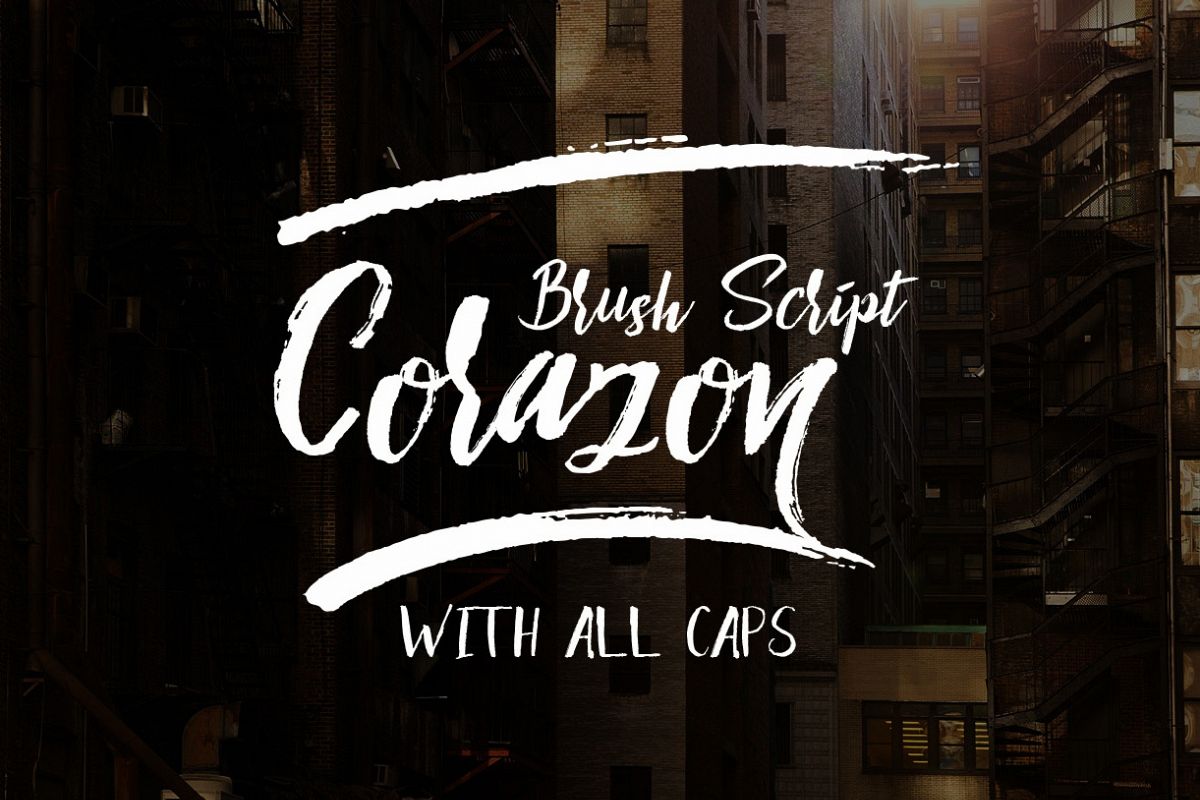
Corazon Brush Script
Swashes
Corazon All Caps
Hello.....Corazon Brush Script is my first font for any typhography dry handbrushed, designed to combine perfectly and allow you to create stunning hand-lettering quickly and easily. Ideal for logos, handwritten quotes, product packaging, header, poster, merchandise, social media & greeting cards.
Corazon Brush Script comes with upper and lowercase characters, large set of punctuation glyphs, numerals, and supports international languages. Stylistic alternates for several key lower case characters are also available.The subset of Corazon Brush Script Regular in this kit supports the following languages: Albanian, Basque, Breton, Chamorro, Danish, Dutch, English, Finnish, Frisian, Galician, German, Italian, Malagasy, Norwegian, Portuguese, Spanish, Swedish